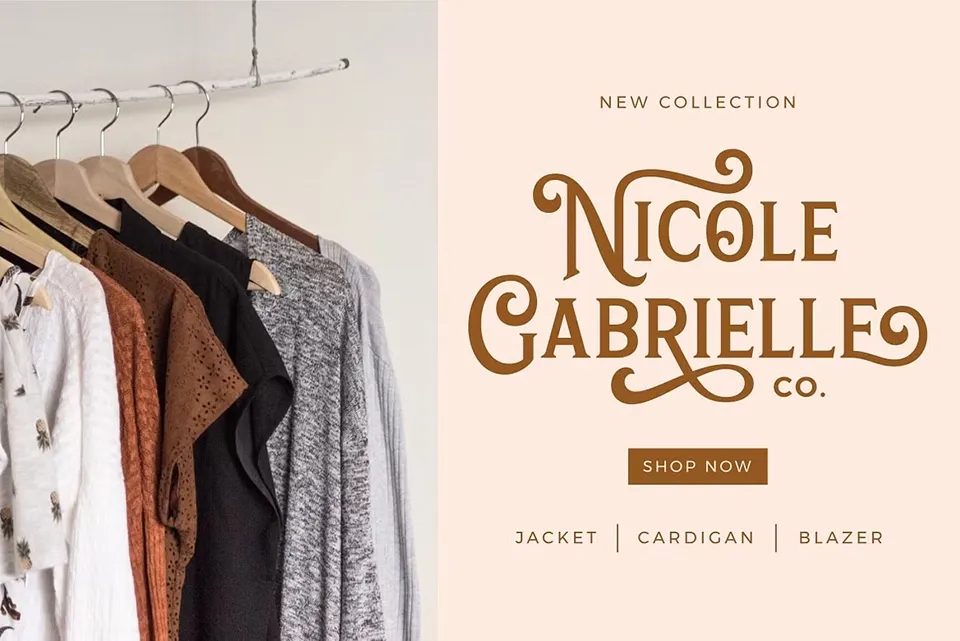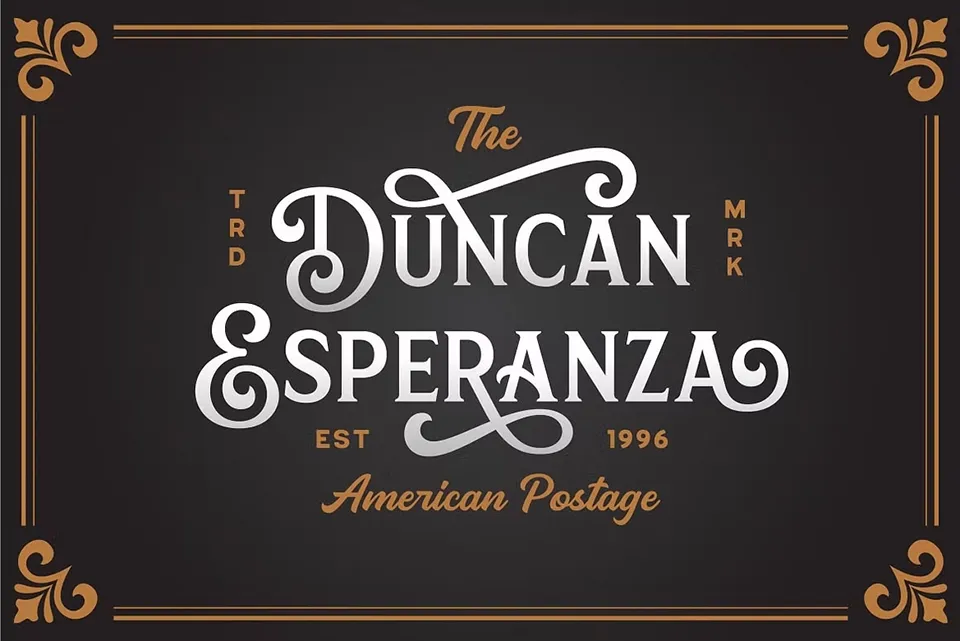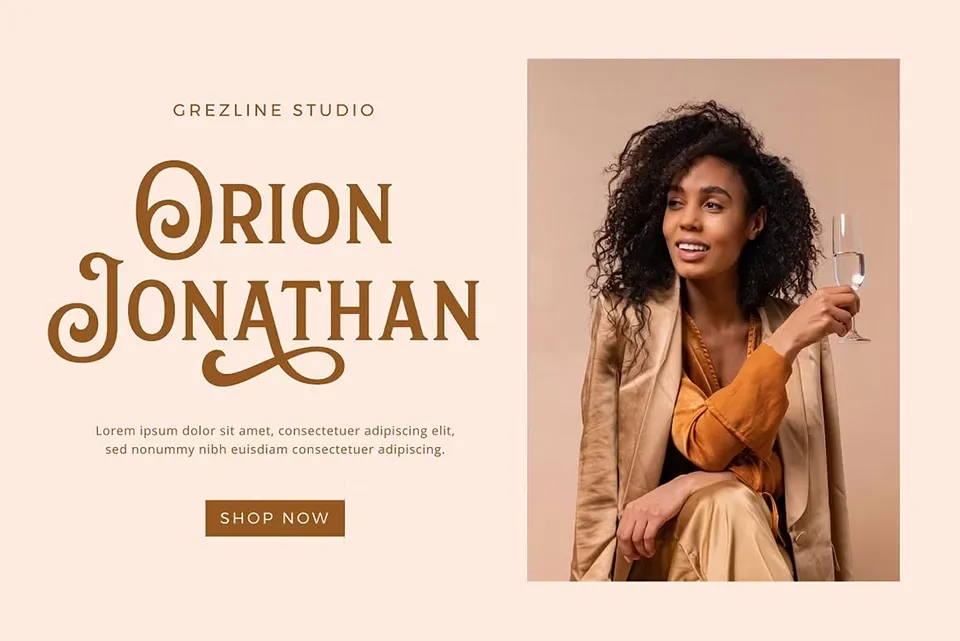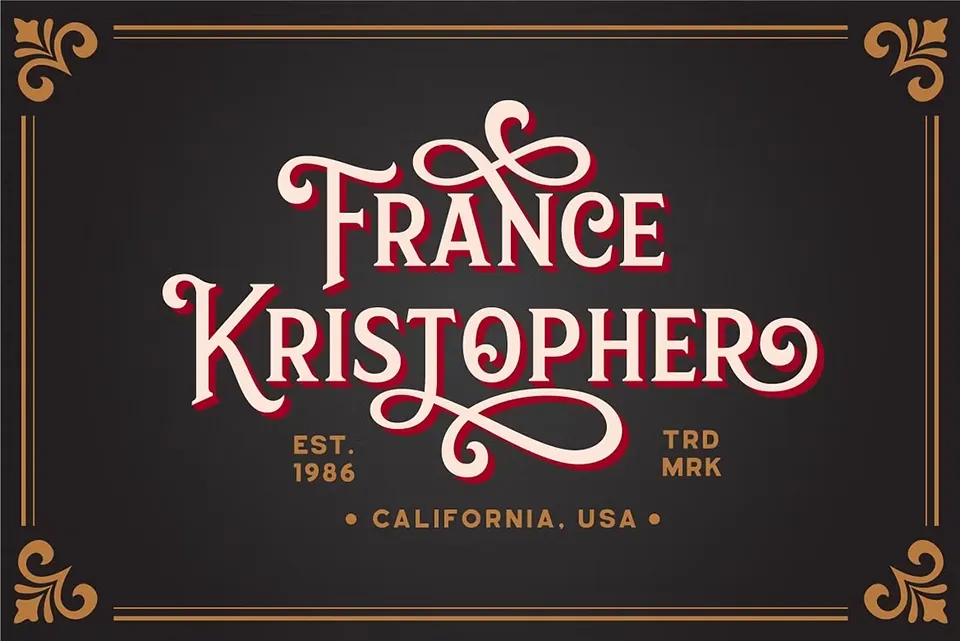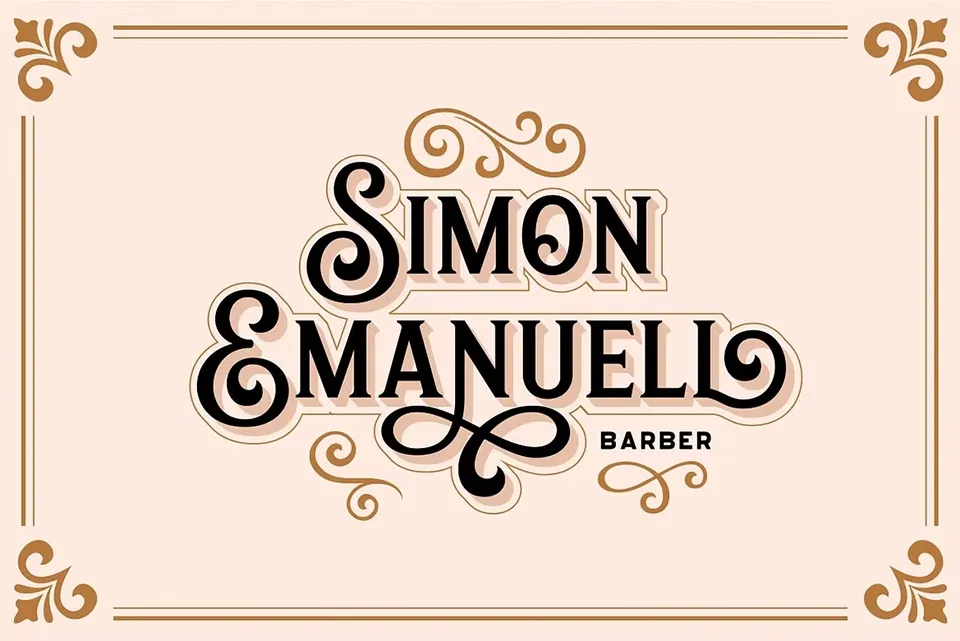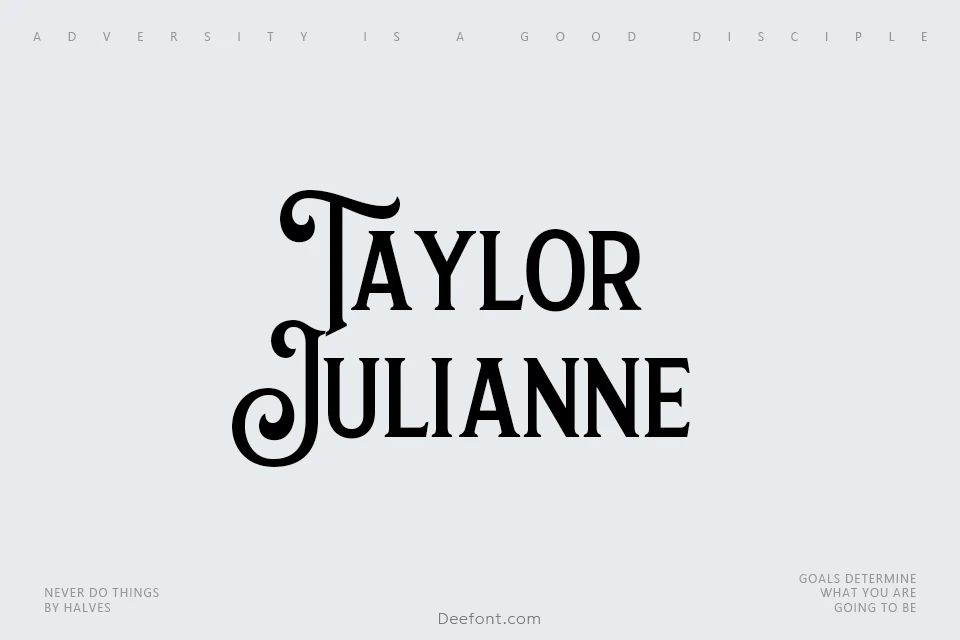
Taylor Julianne Font
Taylor Julianne Font, designed by Grezline Studio, is a bold display typeface with a strong vintage aesthetic. Its defining features include ornate serif characters and elaborate, swirling swashes, particularly noticeable on capital letters and terminals. The font evokes the style of classic signage and labels, projecting a sense of nostalgia and decorative flair. With its impactful presence and intricate details, Taylor Julianne is well-suited for eye-catching headlines, logos, packaging, posters, and branding projects that aim for a distinctive, retro-inspired look. It brings a touch of ornate charm and boldness to designs.